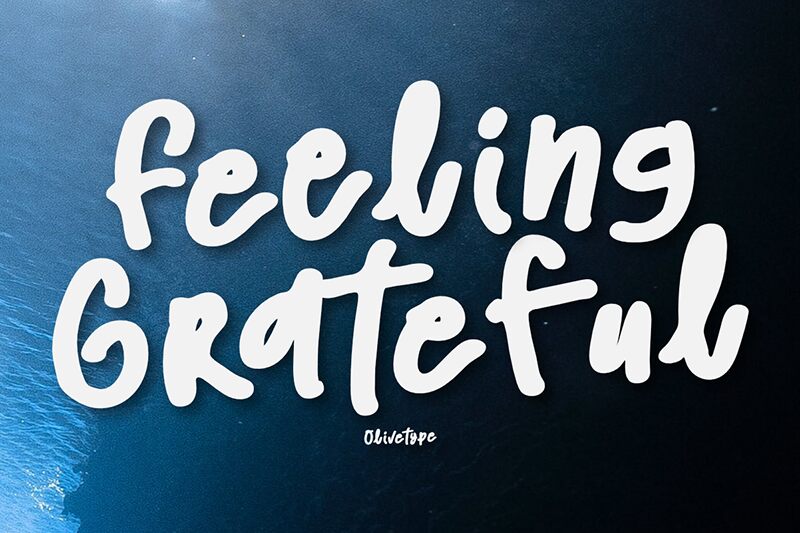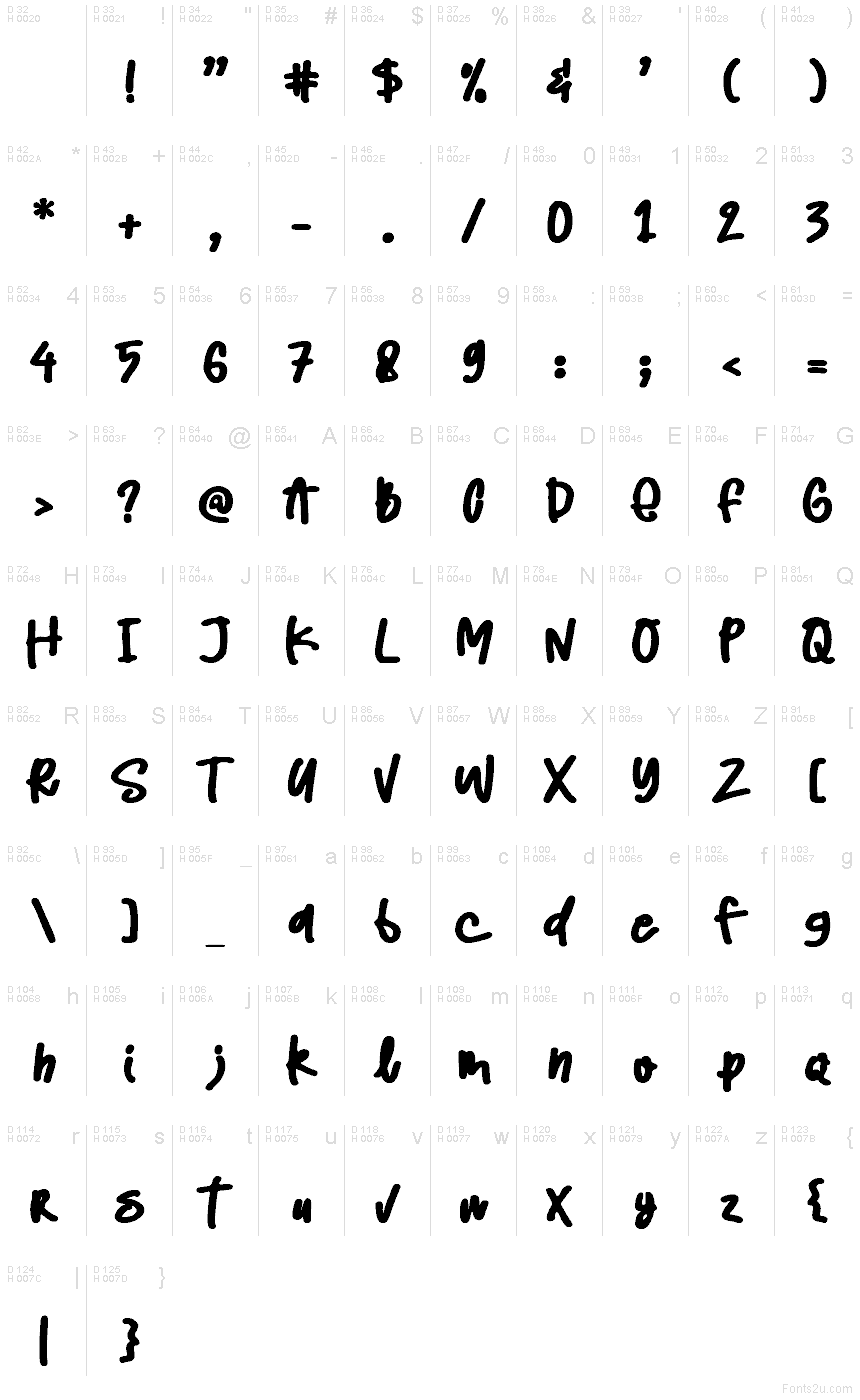
Feeling Grateful font by olivetype is a free handwritten brush typeface. Thick, inky strokes and a gentle bounce give it that fresh marker feel—casual but not messy. The spacing is open and friendly, so headlines read easily while still carrying the warmth of a personal note. When you need hand-drawn energy without sacrificing clarity, this one hits the sweet spot.
Using Feeling Grateful, you can add cozy character to thank-you cards, product packaging, social posts, quote graphics, stickers, café boards, and teacher resources. Its lively rhythm pulls attention at larger sizes and stays legible in short subheads. For a balanced layout, pair this free font with a clean geometric sans-serif for captions and menus, and keep line spacing slightly roomy to let the brush texture breathe.